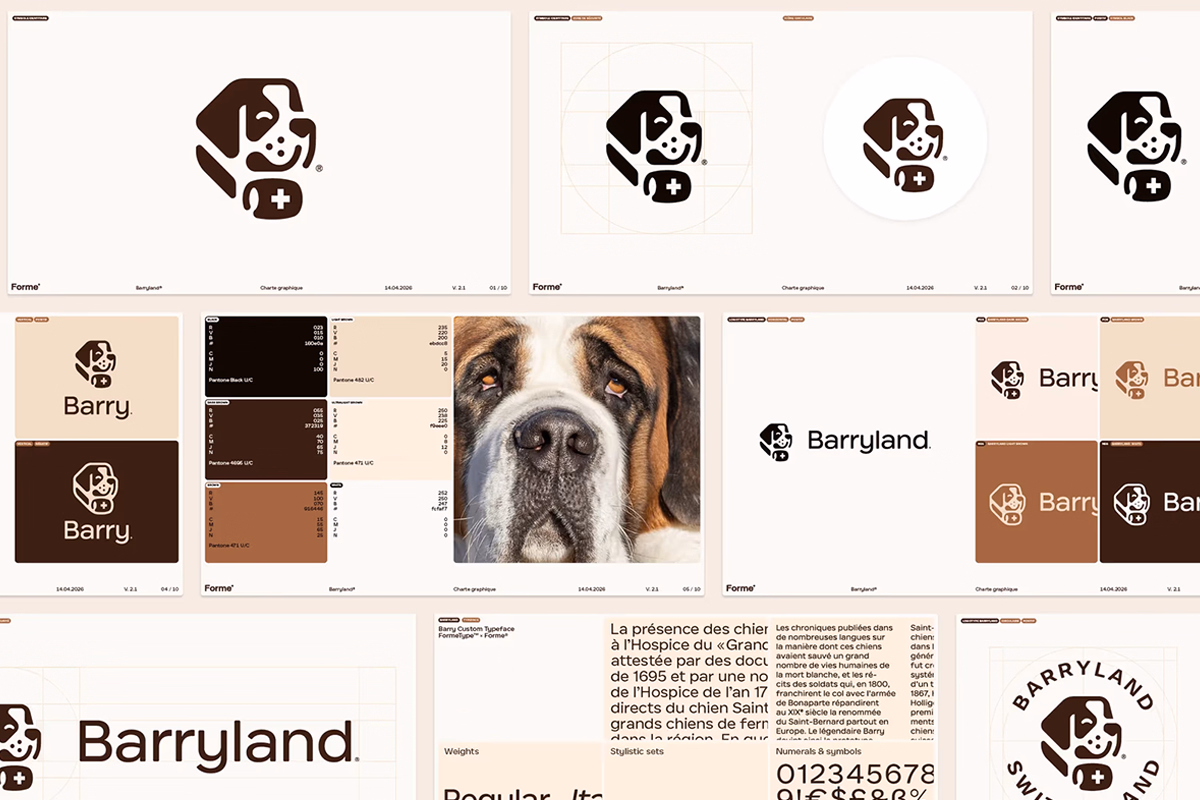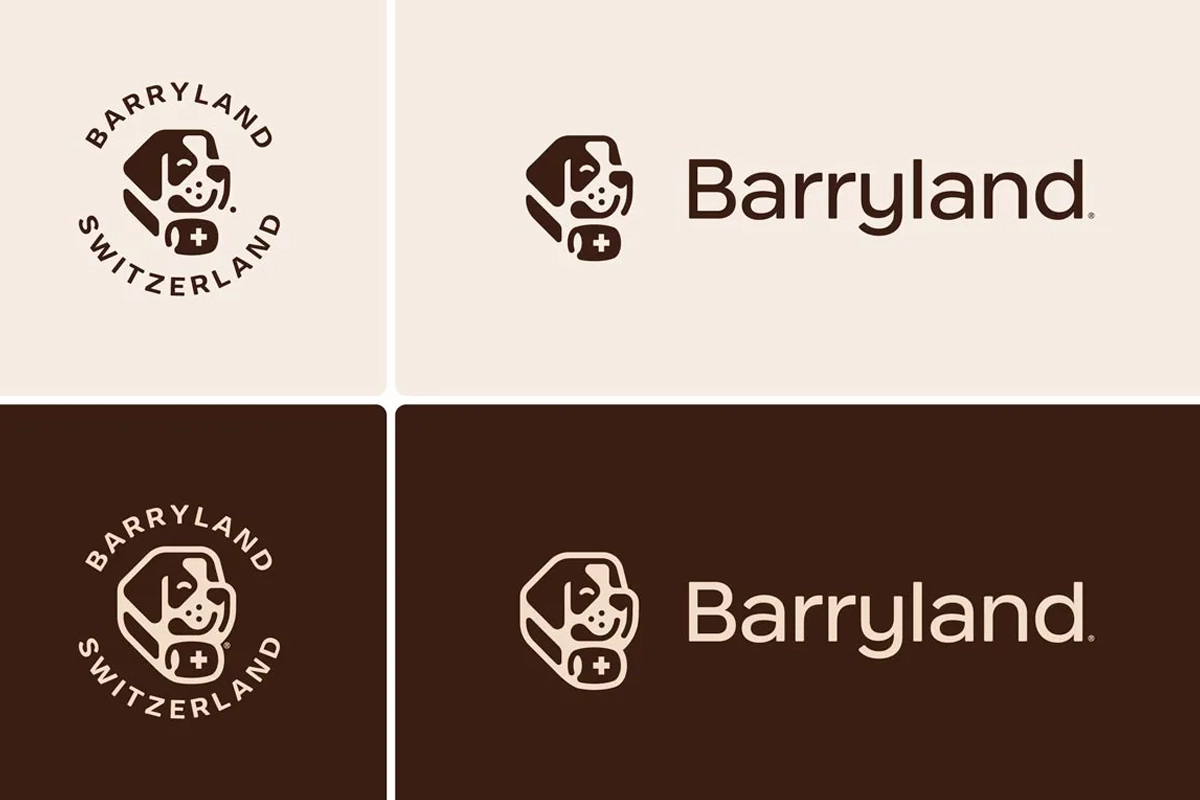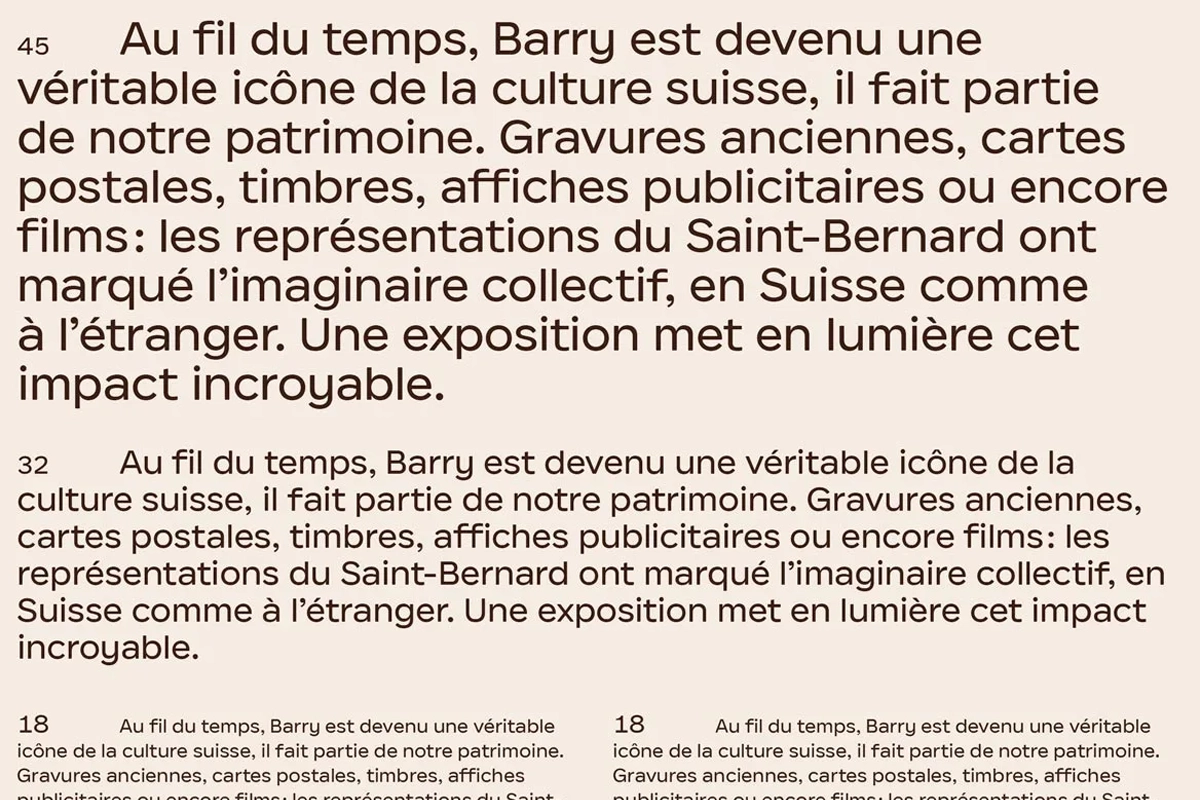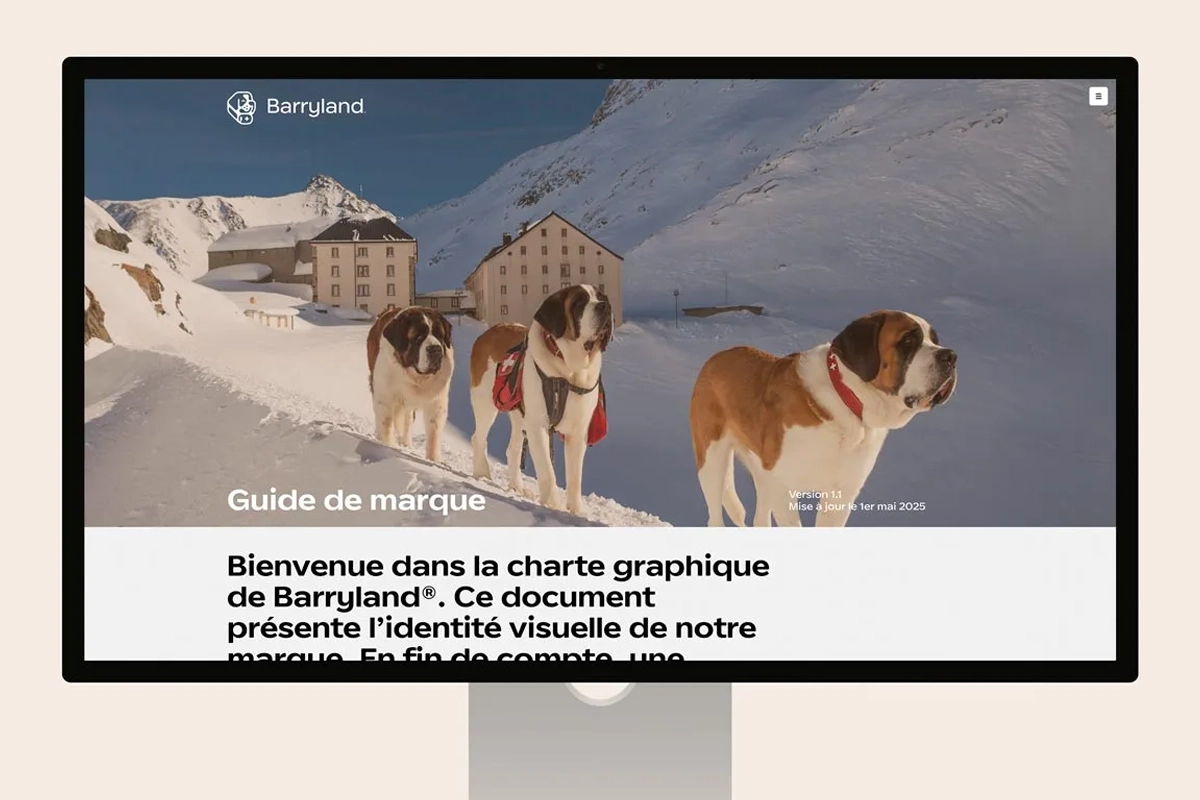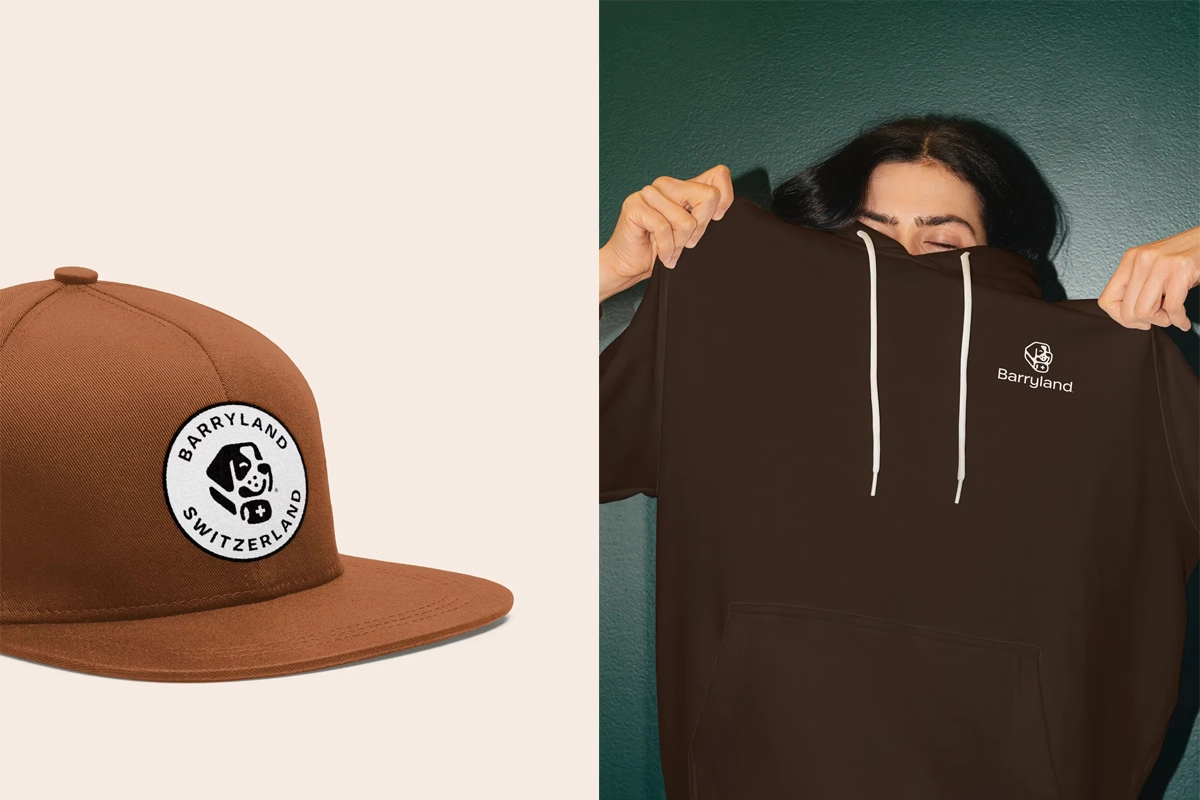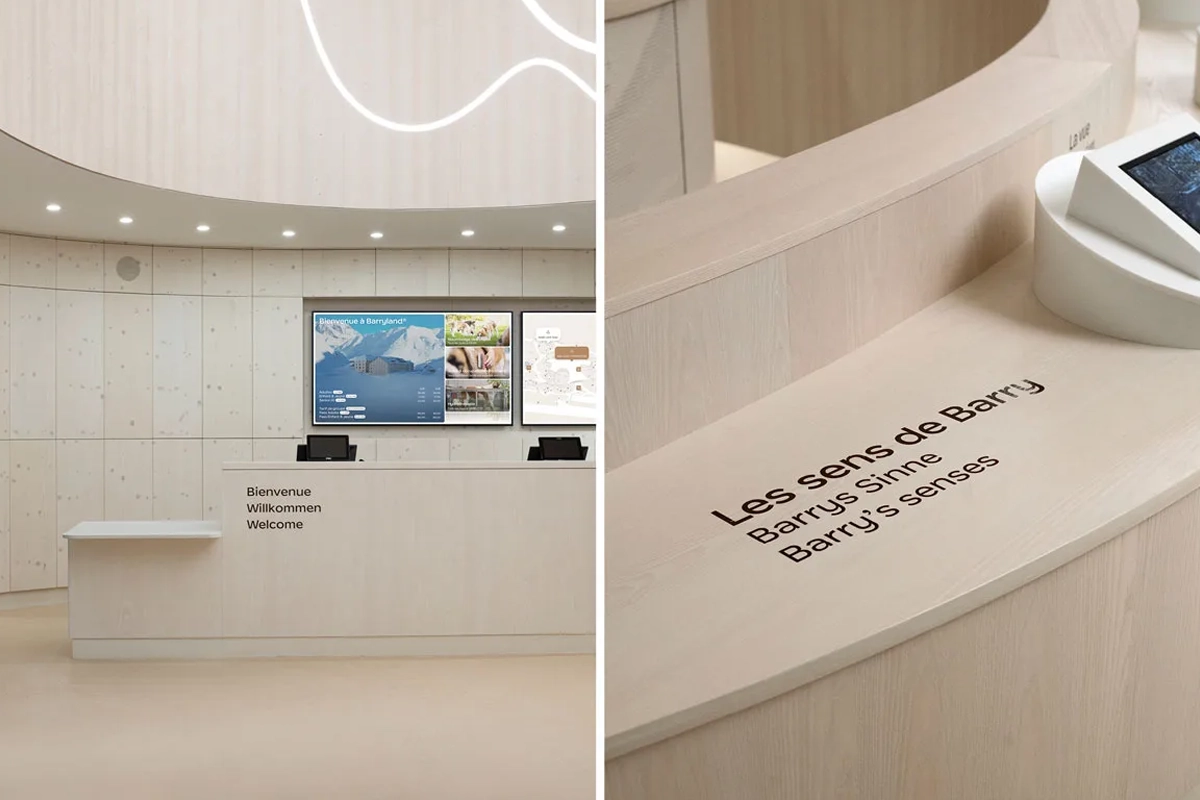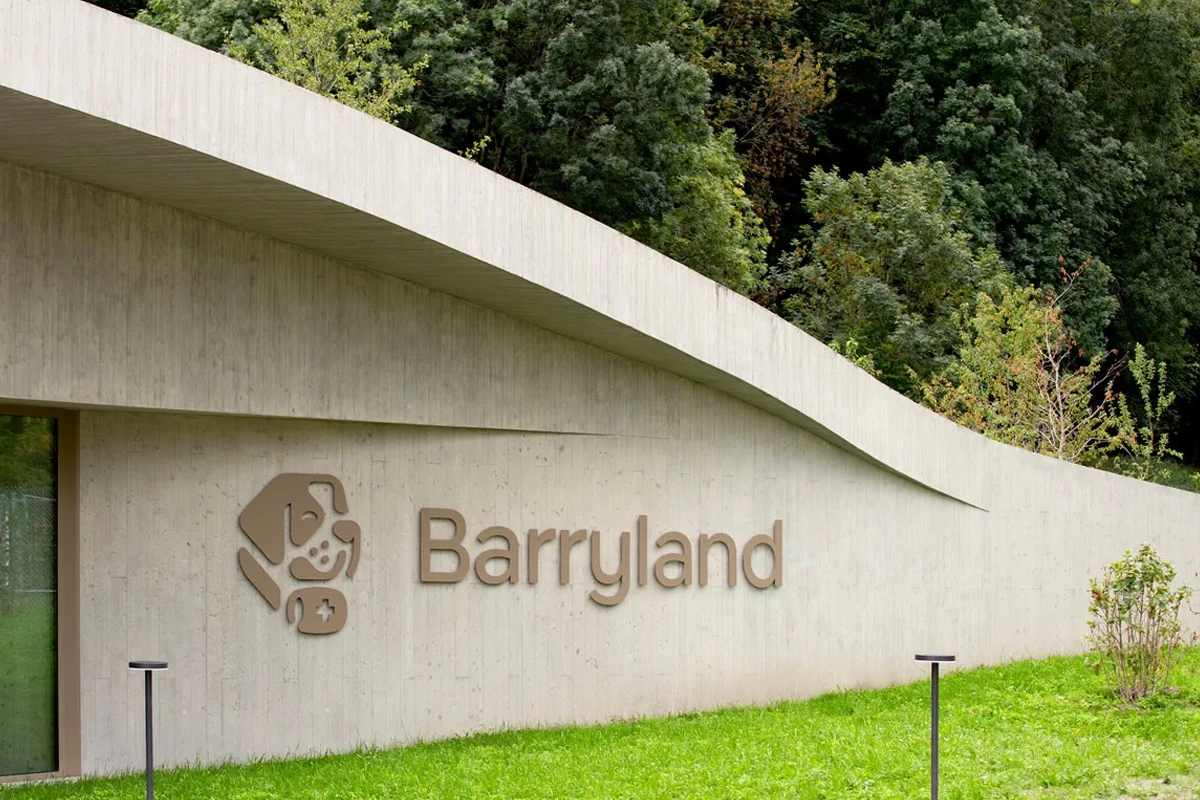
As Forme® reimagined the entire brand identity of Barryland — Switzerland's only thematic park dedicated to the Saint-Bernard dog — for its 2025 reopening in Martigny, they commissioned FormeType™ to design the custom typeface anchoring the new visual system.
We created a warm, legible face that carries the institution across signage, editorial, digital, and merchandise — as iconic as the dog it represents.